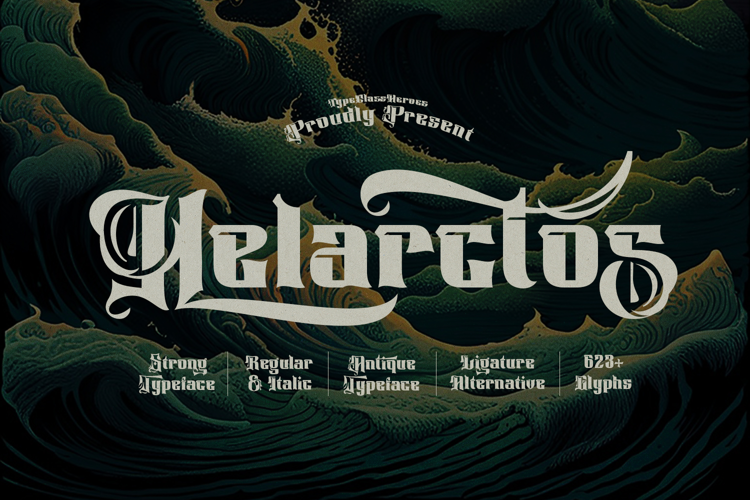
Helarctos Antique Font
Introducing Helarctos, this font features a classic antique style with a touch of Victorian typography era. The letterforms are bold, sharp, and adorned with swashes, giving a strong, elegant, and vintage feel. The characters are artistic and bold, easily attracting attention, making this font ideal for titles, logos, branding, posters, merchandise, and tattoo designs.
•  Uppercase & Lowercase
•  Number & Symbol
•  International Glyphs
•  Multilingual support
•  Alternative
•  Ligature